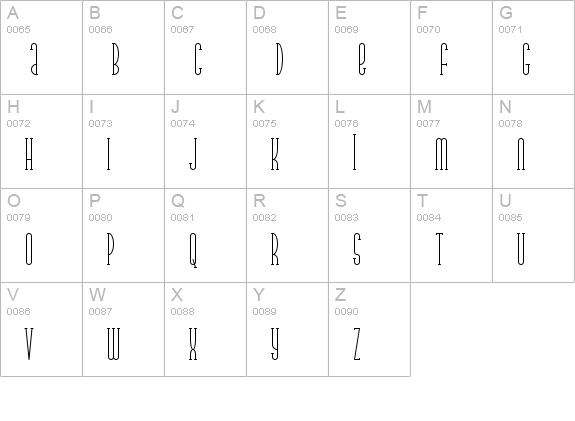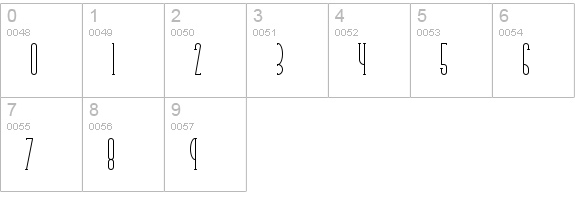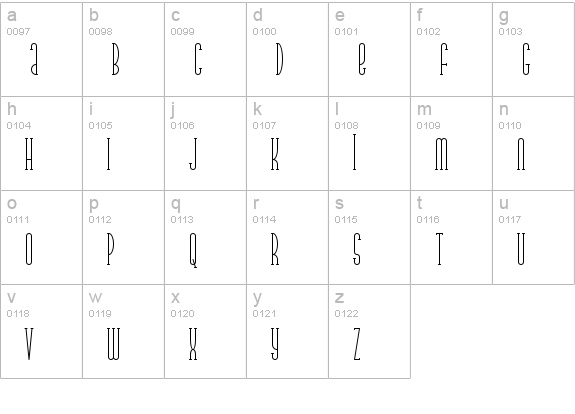
Parkland Serif Font Details
Parkland Serif is a beautifully crafted font that exudes elegance and sophistication. Its timeless design makes it perfect for a wide range of projects, from branding and packaging to editorial and web design. With its clean lines and balanced proportions, Parkland Serif strikes the perfect balance between classic and contemporary. This versatile font offers a wide variety of weights and styles, allowing you to create stunning typography with ease. Whether you're looking for a bold statement or a subtle touch of refinement, Parkland Serif has you covered. One of the best things about Parkland Serif is that it is completely free to download. You can find this amazing font at FontsMarket.com, a trusted source for high-quality fonts. By offering Parkland Serif for free, we hope to make it accessible to designers, students, and anyone who appreciates fine typography. Downloading Parkland Serif is a breeze. Simply visit FontsMarket.com and search for Parkland Serif. Once you find it, just click the download button and the font will be yours to use in any project, personal or commercial. It's that easy! So why wait? Enhance your designs with the timeless beauty of Parkland Serif. Download it for free today at FontsMarket.com and unlock a world of possibilities for your creative projects.